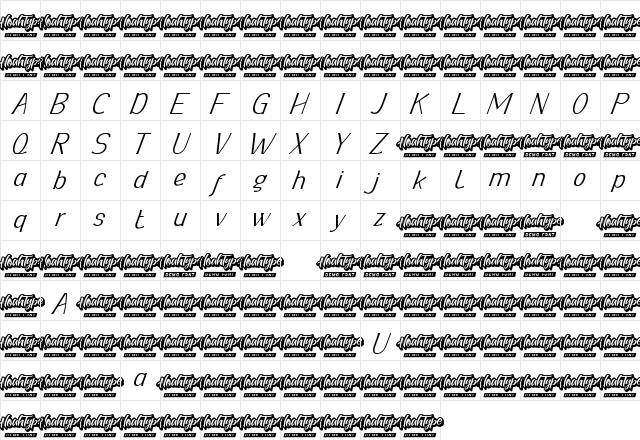
Your Everyday Demo Thin Italic Regular
Design Context for Your Everyday Demo Thin Italic
Your Everyday Demo Thin Italic is a composed and adaptable typeface that performs quietly and consistently across a wide range of design contexts. The slanted form adds forward momentum and visual energy. Its slender proportions lend an understated elegance to any composition.
Pro Tip: Use Your Everyday Demo Thin Italic for emphasis, pull quotes, and subheadings where its slanted energy can add rhythm to the layout.